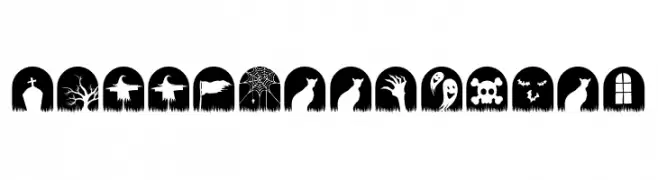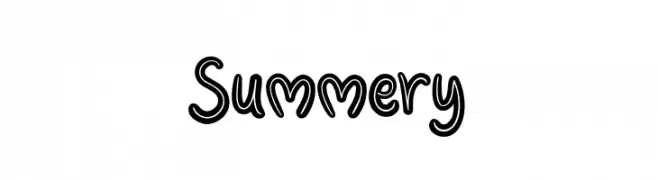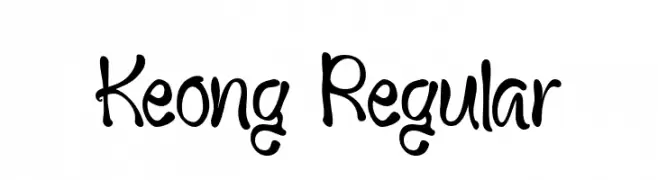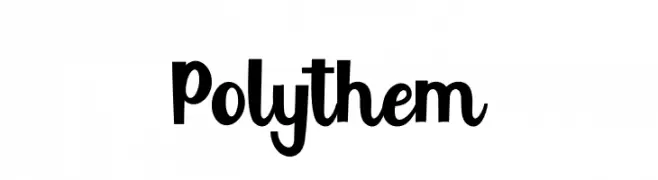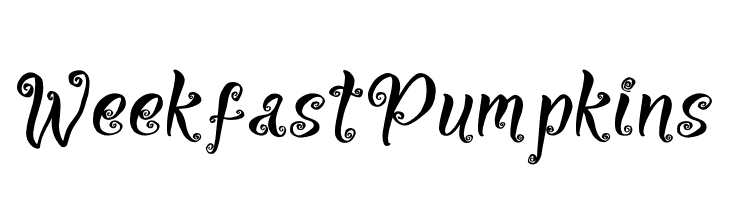
A decorative Halloween-themed font with spooky silhouettes and playful designs.
A playful, festive font with bold, rounded characters and decorative inline elements.
A playful, hand-drawn font with bold, rounded outlines and a whimsical style.
A playful, hand-drawn font with tall, narrow characters and a whimsical style.
A playful, handwritten font with bold, rounded characters and a whimsical style.
A playful, hand-drawn font with bold, flowing strokes and whimsical curves.
A playful, bold, and handwritten-style font with rounded edges.
A bold, playful font with a hand-drawn, whimsical style.
A playful, bold font with rounded, hand-drawn characters.
A playful, bold handwritten font with a whimsical and energetic style.